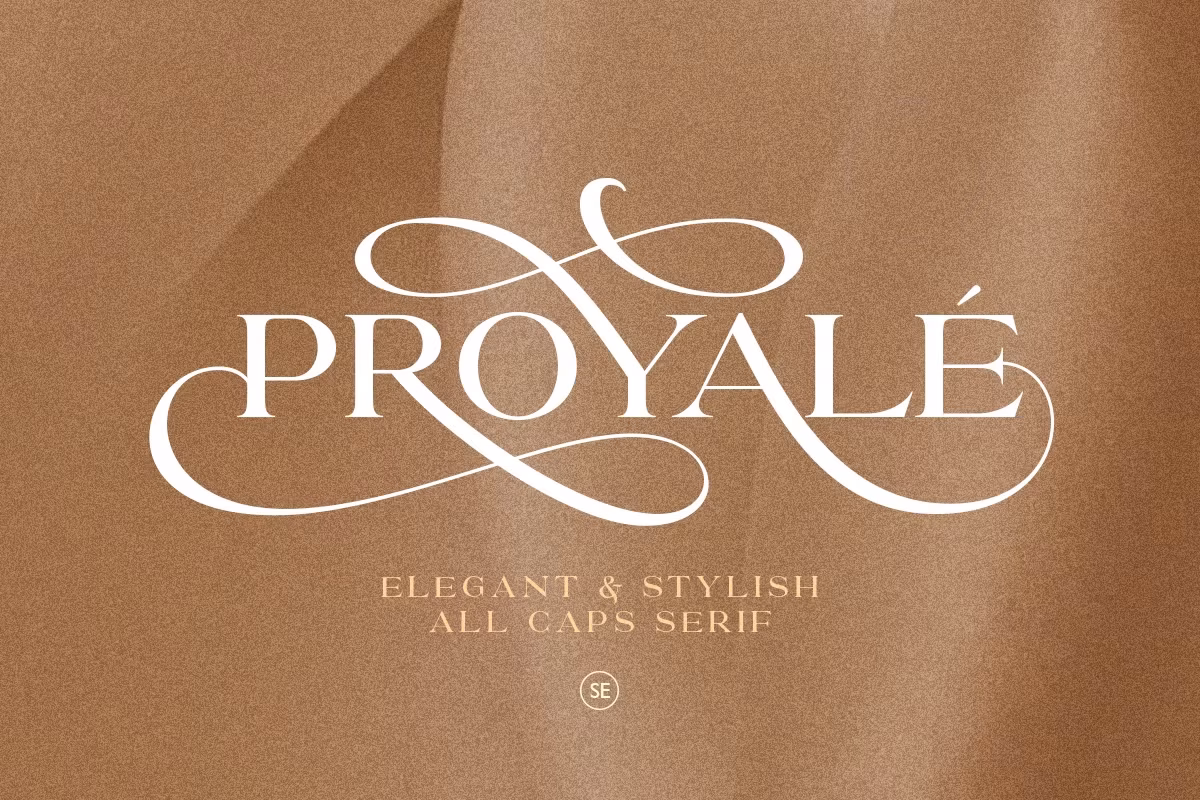
Proyale - Elegant & Stylish Serif Font Free Download is a refined and sophisticated typeface designed to add timeless elegance to your designs. Featuring clean lines, sharp serifs, and a modern yet classic feel, this font is perfect for creating logos, branding materials, invitations, editorial designs, and more. Its versatile style works well for both luxury brands and creative projects, ensuring a professional, polished look. Whether you're designing for a high-end product, a chic event, or an elegant campaign, Proyale - Elegant & Stylish Serif Font Free Download allows you to experiment with its beautiful design in personal projects before purchasing a commercial license. Add sophistication and style to your designs with this beautifully crafted serif font.